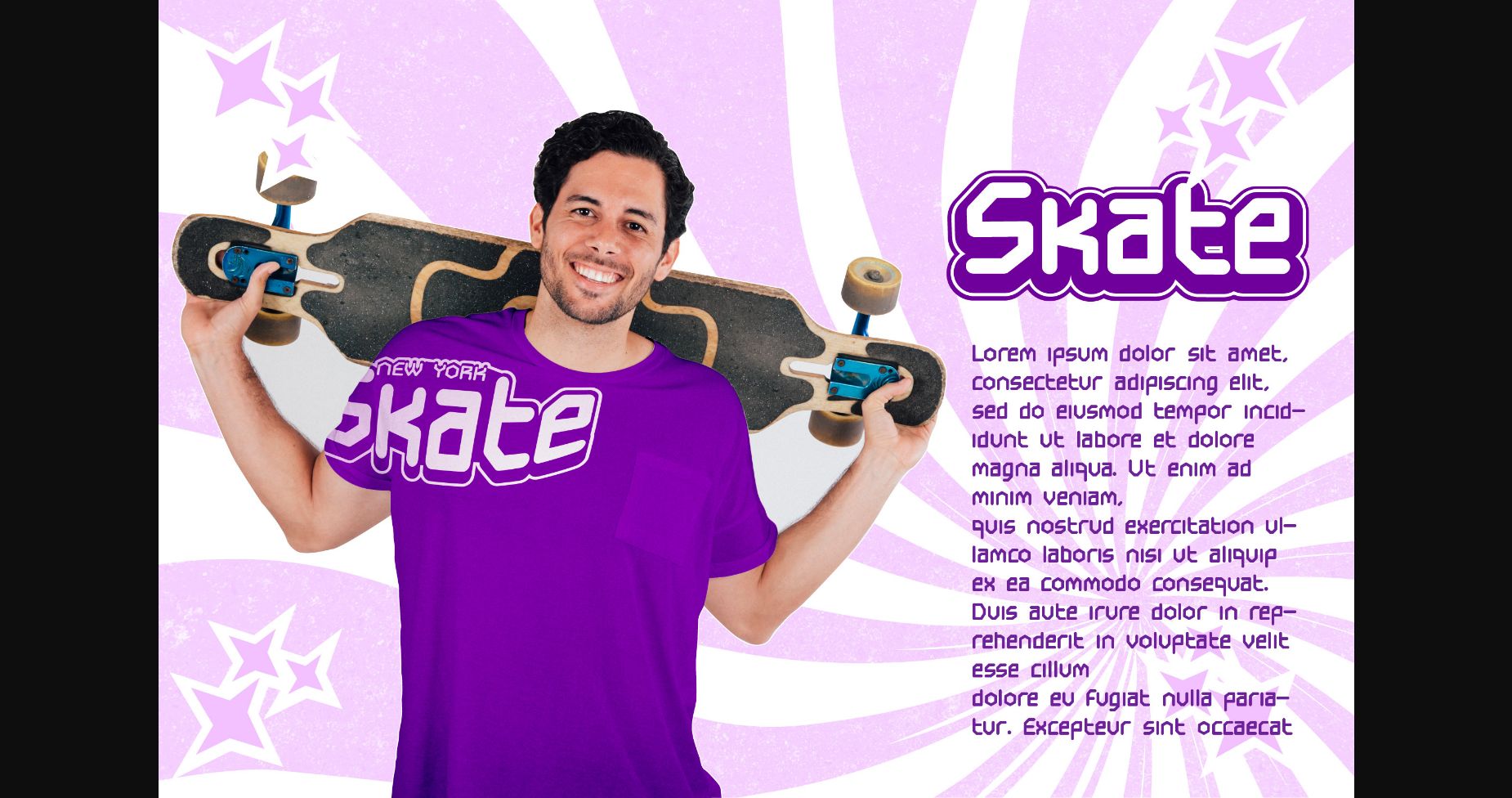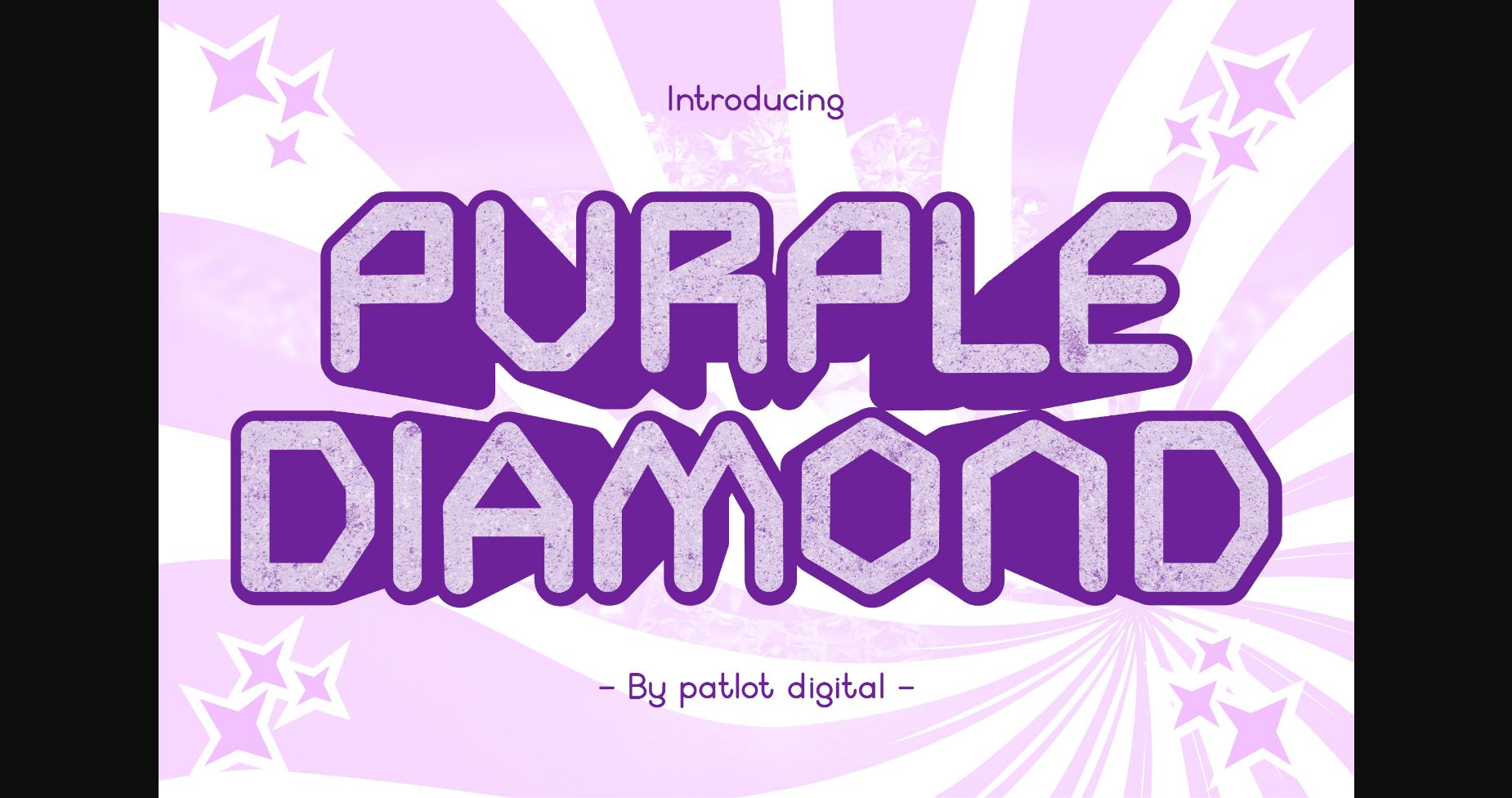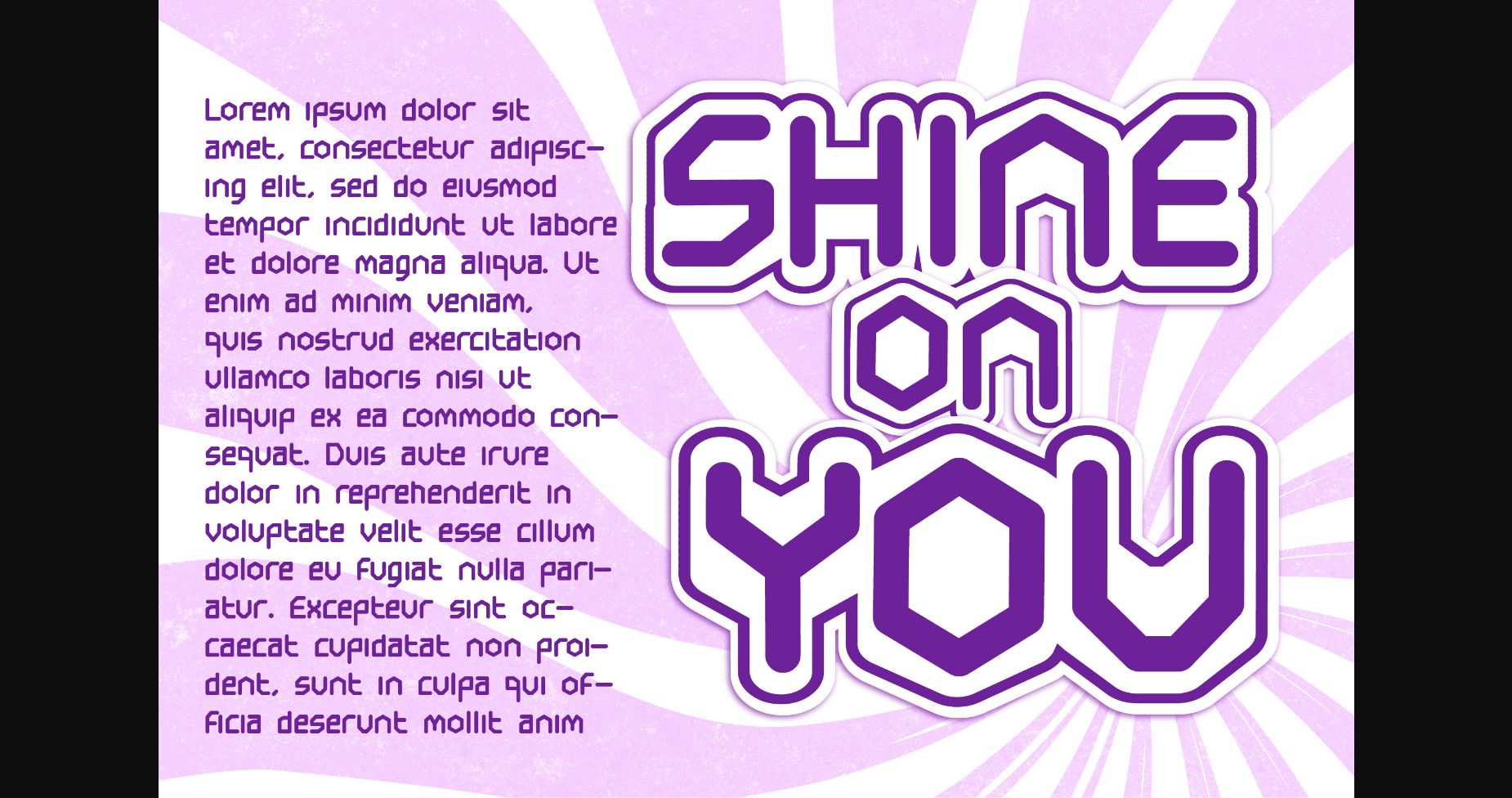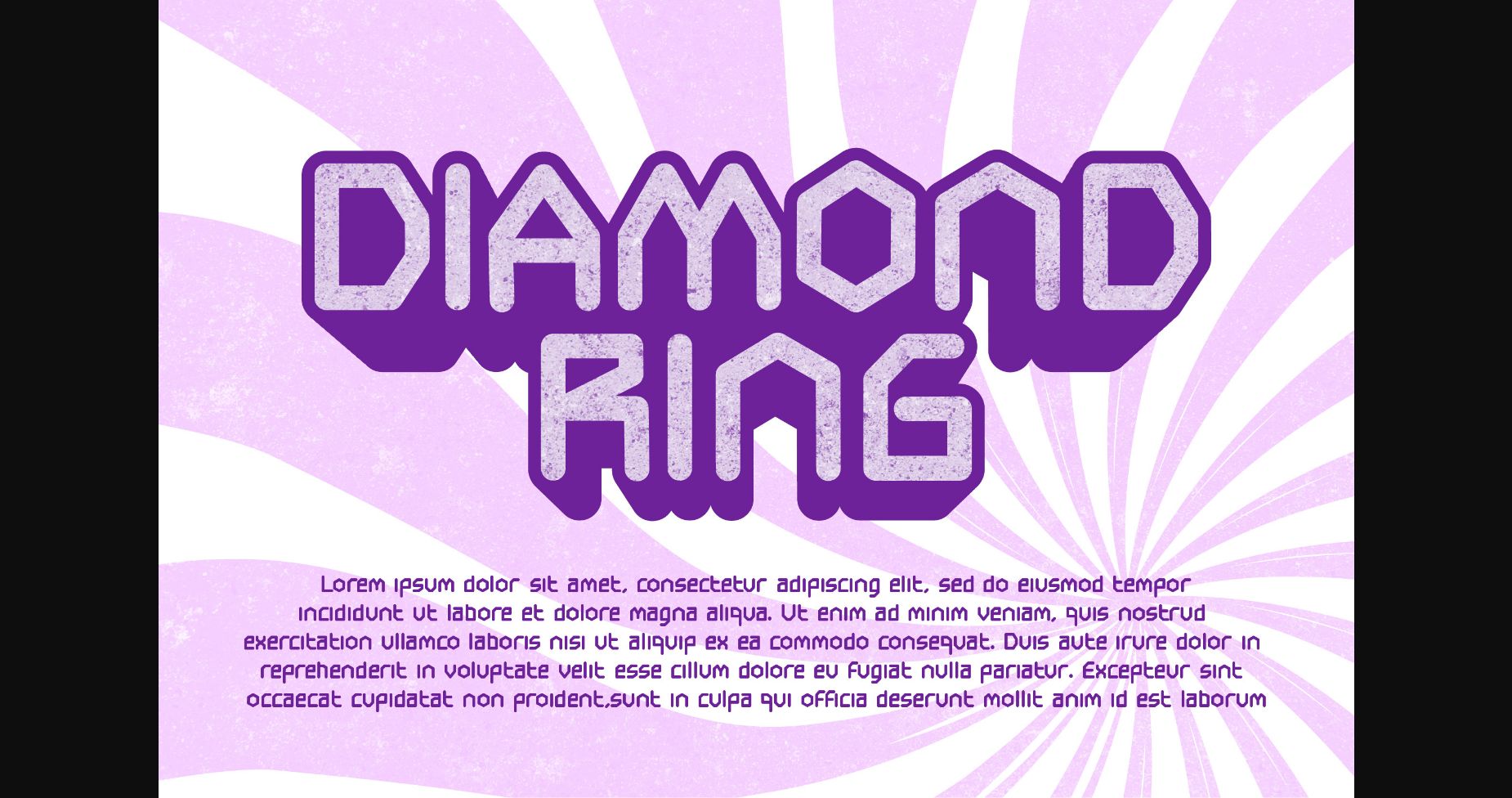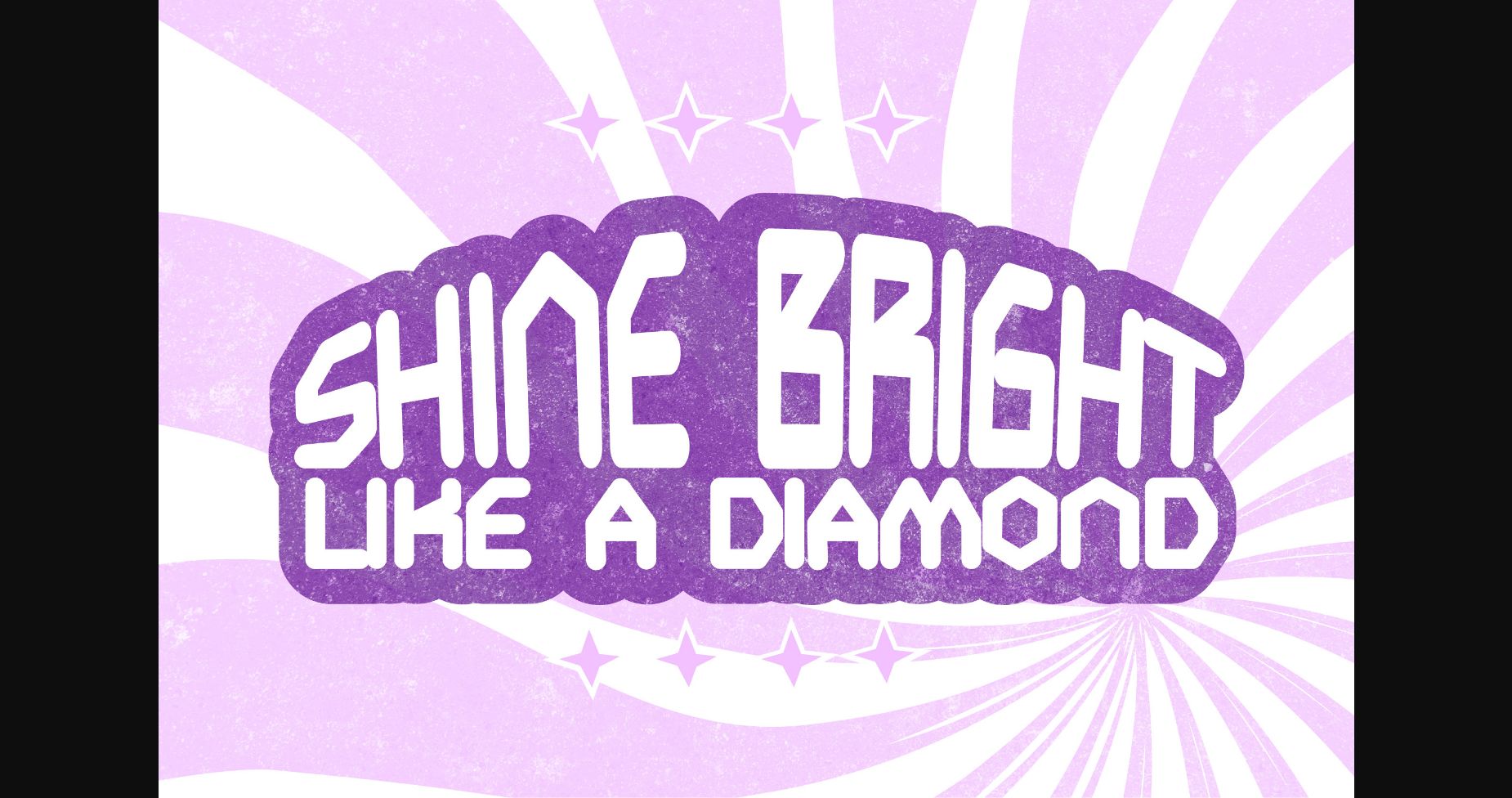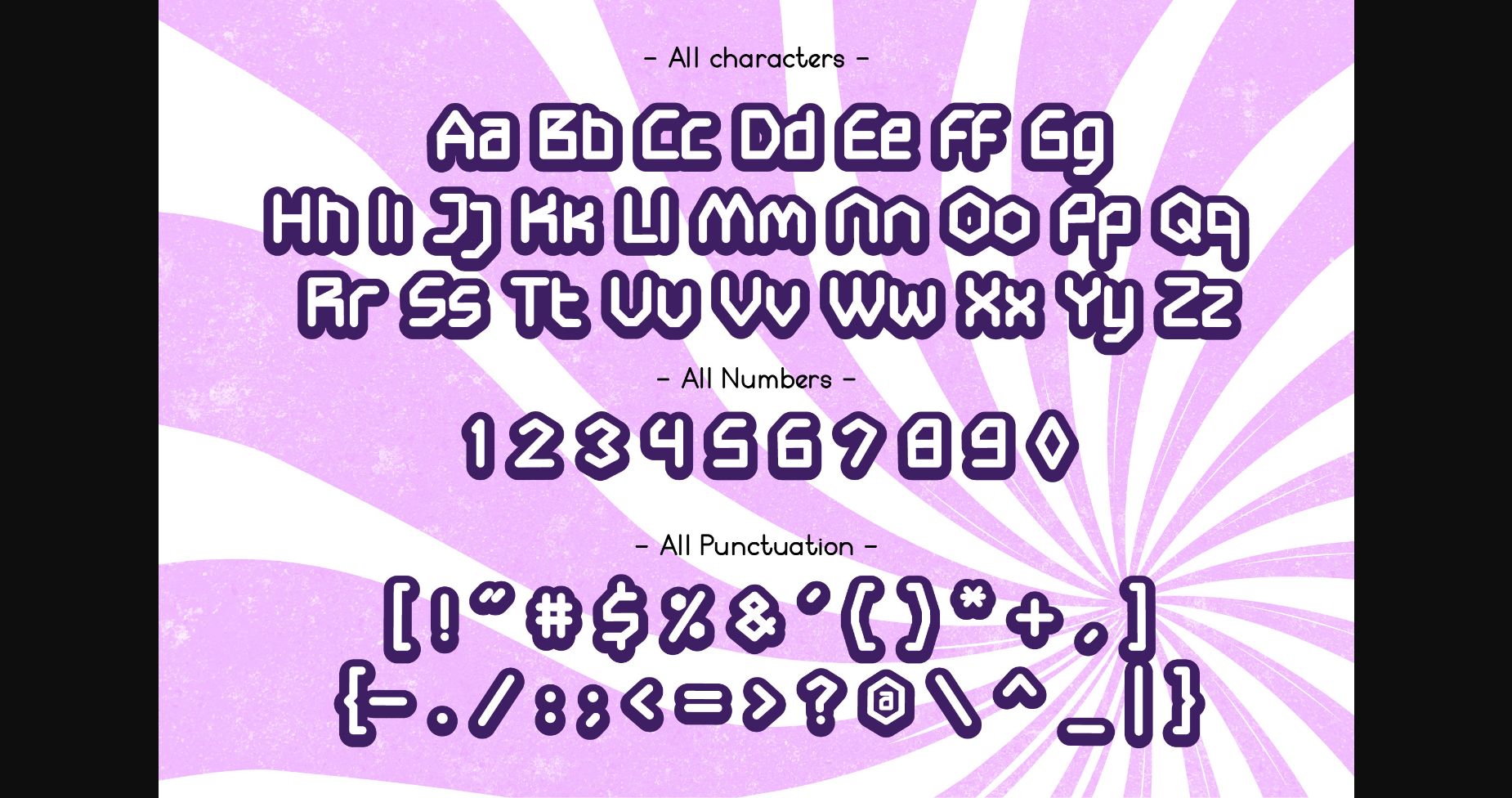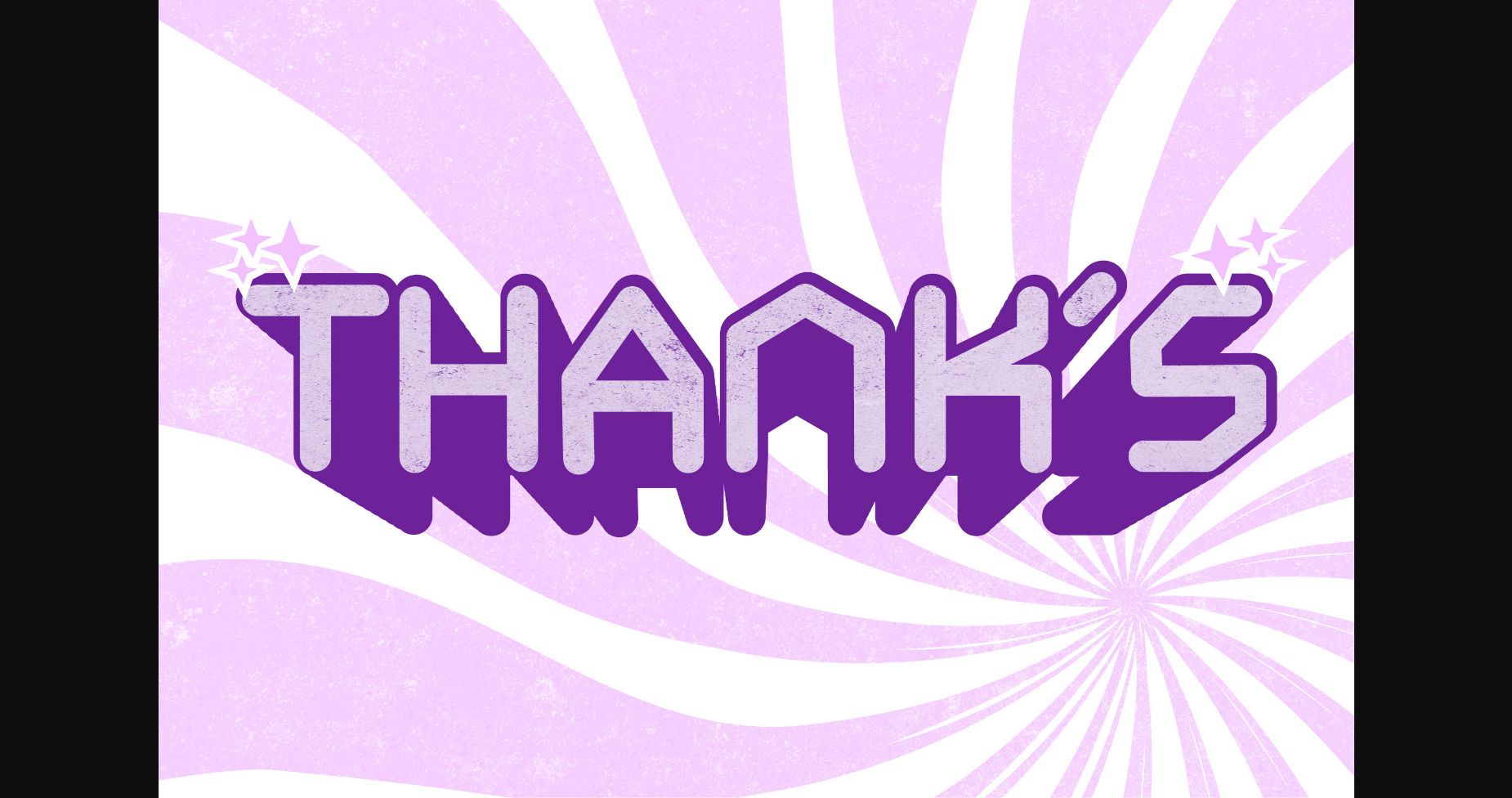
Purple Diamond Font
About Purple Diamond Font
Purple Diamond is a monoline sans serif font, created for cool and unique designs. This font can be used for food products, titles, and more.